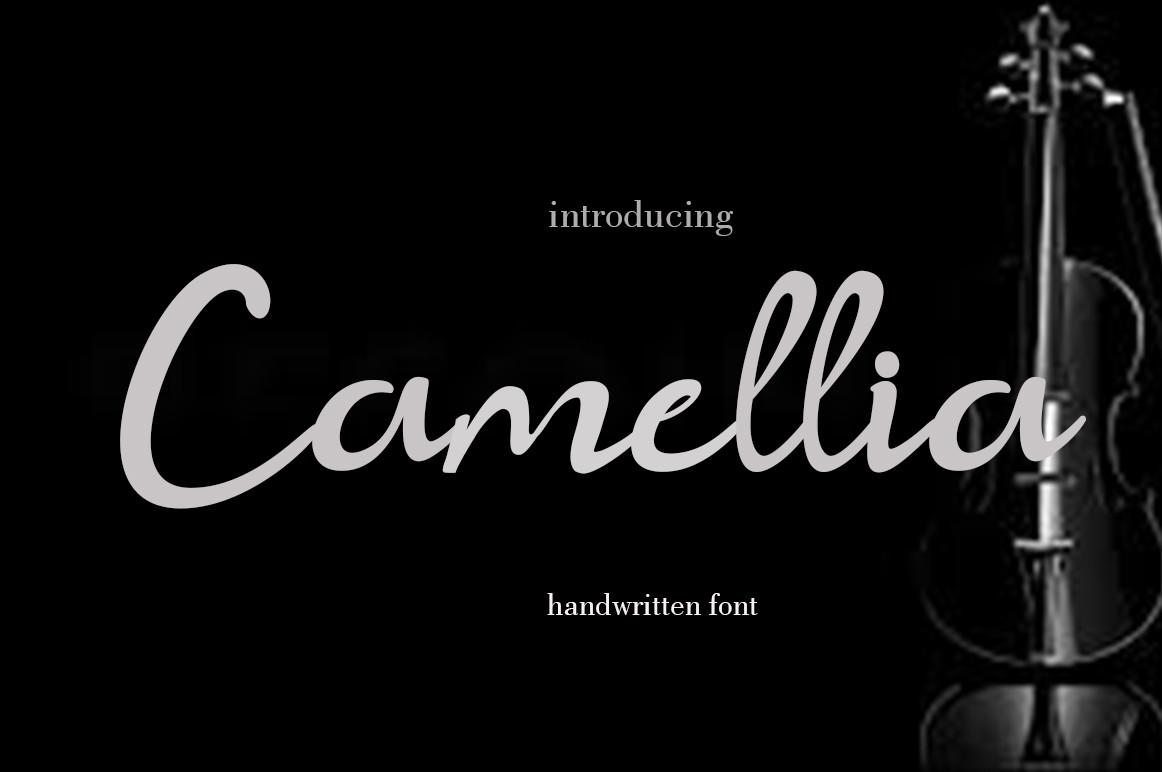
Camellia is a lovely and cursive script font. It features a dainty and sweet style and it will most certainly make each of your creations look gorgeous.